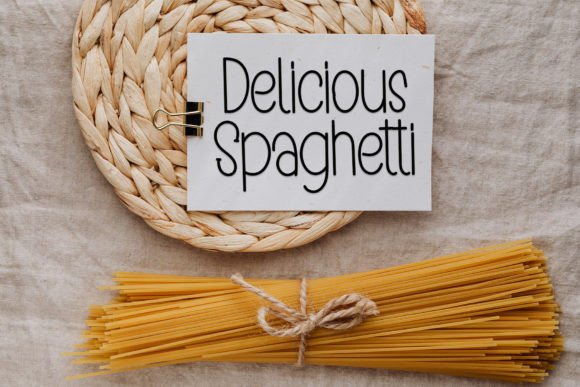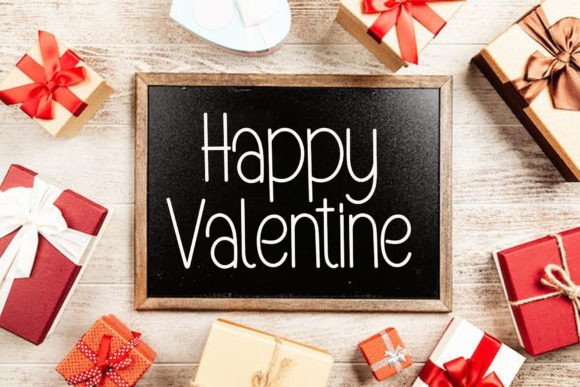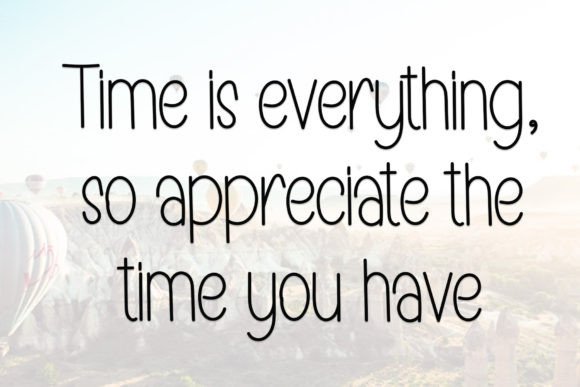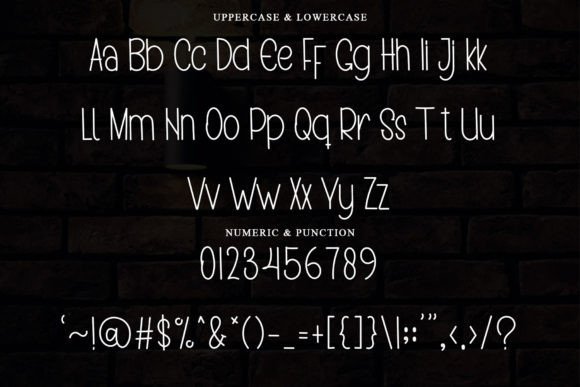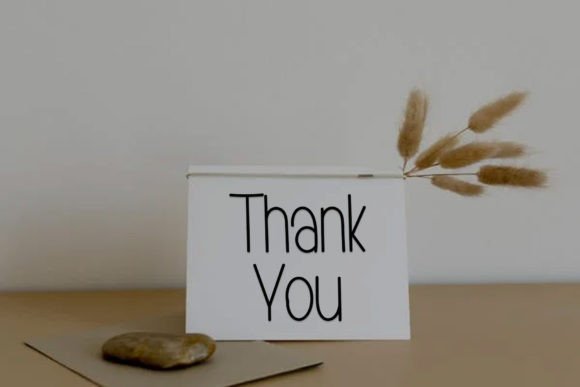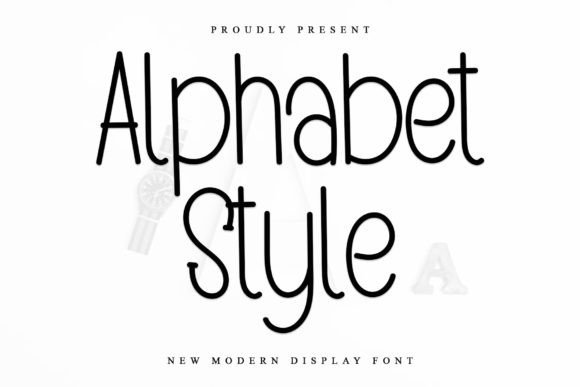
Introducing Alphabet Style Font: Elevate Your Designs with Elegance and Charm
In the world of typography, a well-crafted font can make all the difference in elevating your designs from ordinary to extraordinary. If you’re a designer, crafter, or simply someone who appreciates the art of beautiful lettering, you’re in for a treat. Meet Alphabet Style Font, a stylish display font that exudes elegance and charm, perfect for adding a personal touch to invitations, branding, or social media.
The Essence of Alphabet Style Font
Alphabet Style Font is a masterpiece of typographic design, boasting fluid strokes and a natural flow that creates a captivating, sophisticated look. This stunning font is designed to bring a sense of warmth and creativity to any design, making it an ideal choice for crafters and designers looking to add a touch of personality to their work.
Key Features of Alphabet Style Font
- Fluid Strokes: Alphabet Style Font features smooth, flowing strokes that give it a sense of elegance and refinement.
- Natural Flow: The font’s natural flow creates a sense of movement and energy, making it perfect for designs that require a touch of dynamism.
- Captivating Look: The combination of fluid strokes and natural flow creates a captivating look that’s sure to grab attention.
- Sophisticated Feel: Alphabet Style Font exudes sophistication, making it perfect for high-end branding, invitations, and other designs that require a touch of luxury.
Whether you’re a designer looking to elevate your branding or a crafter seeking to add a personal touch to your creations, Alphabet Style Font is the perfect choice. This versatile font can be used for a wide range of design projects, including:
- Invitations: Add a touch of elegance to your wedding invitations, birthday cards, or other special occasion designs.
- Branding: Use Alphabet Style Font to create a sophisticated brand identity that sets you apart from the competition.
- Social Media: Elevate your social media designs with a font that’s sure to grab attention and leave a lasting impression.
Why Choose Alphabet Style Font?
- Unique Design: Alphabet Style Font boasts a unique design that’s sure to make your designs stand out.
- Elegant and Charming: This font exudes elegance and charm, making it perfect for designs that require a touch of sophistication.
- Versatile: Alphabet Style Font can be used for a wide range of design projects, from invitations to branding and social media.